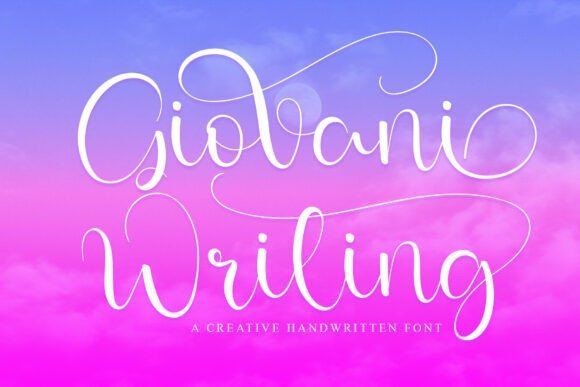
Giving Your Designs a Personal Touch with the Giovani Writing Font
There’s something special about receiving a handwritten letter or card in the mail. The imperfections and quirks of a handwritten font evoke a sense of warmth and personality that digital fonts often can’t match. As designers, we’re always looking for ways to add that extra layer of emotion to our work.
Enter the Giovani Writing Font, a beautiful cursive script that’s perfect for adding a touch of elegance and romance to your designs. Whether you’re working on a branding project, creating a wedding invitation, or simply want to add some flair to a marketing campaign, this font is sure to impress. Its gentle, flowing lines make it a joy to work with, and its versatility means it’s perfect for a wide range of design ideas.
Giovani Writing Font Key Features
- Font Size and Resolution: Giovani Writing Font is designed to be highly legible at various font sizes and resolutions, with optimal results at 12-14 points and 300-600 dpi.
- Unique Characteristics: This font features a distinctive, elegant script with a modern twist, making it perfect for creative writing, invitations, and other applications where a touch of sophistication is desired.
- Font Style: Giovani Writing Font is available in a single font style, which is ideal for creating a cohesive and polished look in your designs.
- Language Support: This font supports a wide range of languages, including Latin-based languages, making it a versatile choice for global designs.
Giovani Writing Font Review
I recently had the chance to work with Giovani Writing Font, and I have to say it’s a mixed bag. On one hand, there are some things I really like about it.
- ✨ Elegant feel: Giovani Writing Font has a sophisticated and elegant feel to it, which is perfect for creative and artistic projects.
- ✨ High readability: The font is highly legible, even at smaller font sizes, making it a great choice for body text.
- ✨ Beautiful cursive: The cursive script in Giovani Writing Font is beautiful and fluid, perfect for adding a touch of elegance to your designs.
However, there are also some limitations to consider.
- ⚠️ Limited font weights: Giovani Writing Font only comes in a few font weights, which can make it difficult to create contrast and hierarchy in your designs.
- ⚠️ Not ideal for large text: While the font is great for body text, it’s not the best choice for large headlines or titles.
- ⚠️ Not suitable for bold or dramatic designs: Giovani Writing Font has a delicate feel to it, which may not be suitable for bold or dramatic designs.
Overall, I think Giovani Writing Font is a solid choice for designers who are looking for a elegant and readable font for creative projects. However, it may not be the best choice for more formal or dramatic designs.
Giovani Writing Font: A Practical Application Guide
Tips for Getting the Most Out of Giovani Writing Font
For best results, use Giovani Writing Font in headings and titles to create a visually appealing contrast with body text.
Use it in combination with other fonts to create a unique and stylish design.
Giovani Writing Font is ideal for:
Creating elegant and sophisticated designs.
Adding a touch of sophistication to business presentations and reports.
Designing invitations and greeting cards for special occasions.
Alternatives to Giovani Writing Font
Playfair Display is a high-end serif font with elegant and luxurious feel. It is ideal for use in luxury branding, magazines, and high-end publications. It is more ornate and decorative than Giovani Writing Font, with a more dramatic flair. When to use: luxury branding, high-end publications, and editorial design.
Lato is a sans-serif font with a clean and modern look. It is suitable for use in digital products, apps, and websites. Compared to Giovani Writing Font, Lato is more minimalist and less ornate, making it ideal for digital interfaces. When to use: digital products, apps, websites, and modern branding.